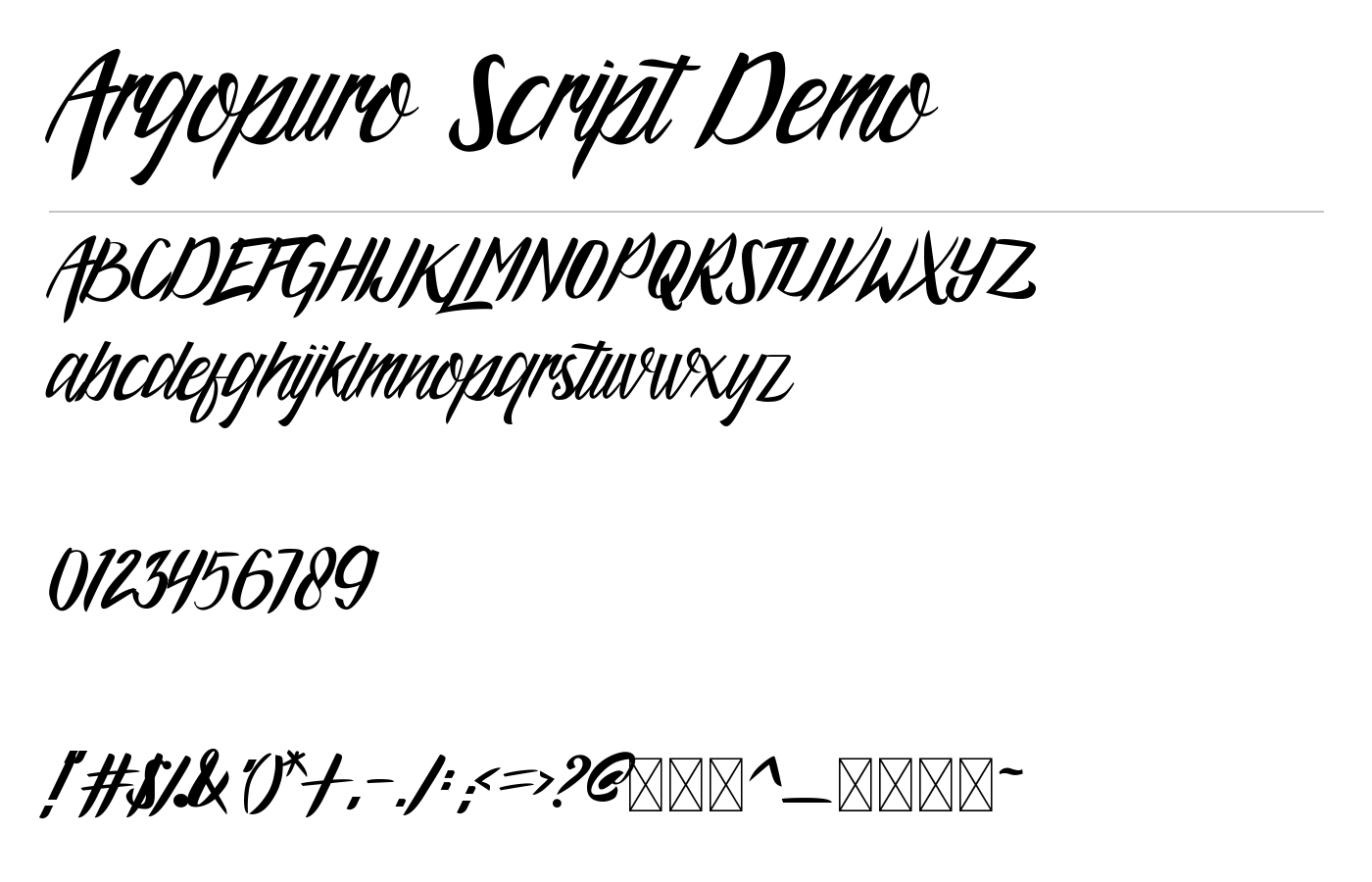
Argopuro Script Demo is an elegant, modern script font with a handwritten feel, featuring fluid, sharp strokes and a noticeable slant that adds dynamic energy. It sports a medium weight with smooth, flowing letterforms and clean connectors, making it perfect for stylish branding, invitations, or any design seeking a personal yet polished touch. Its lively personality and legible design suit creative headlines and logos that want to convey sophistication with a casual charm.
Argopuro Script Demo Font
About Argopuro Script Demo Font
| Font family | Argopuro Script Demo Font |
| Designer | Agni Ardi Rein Prasetyo |